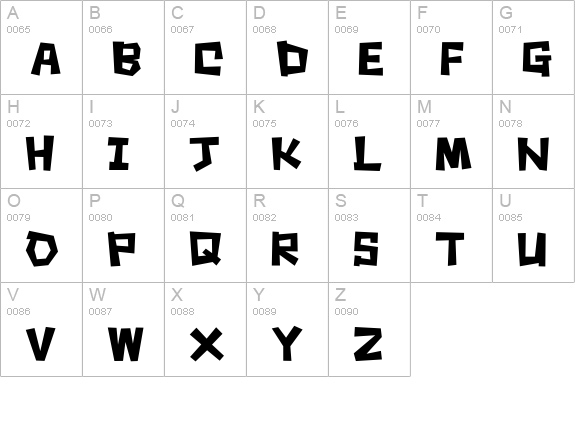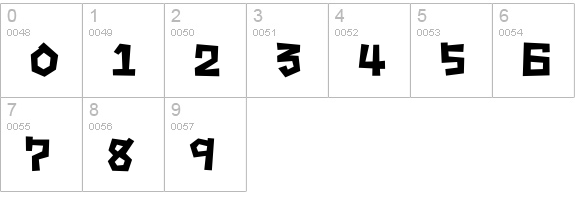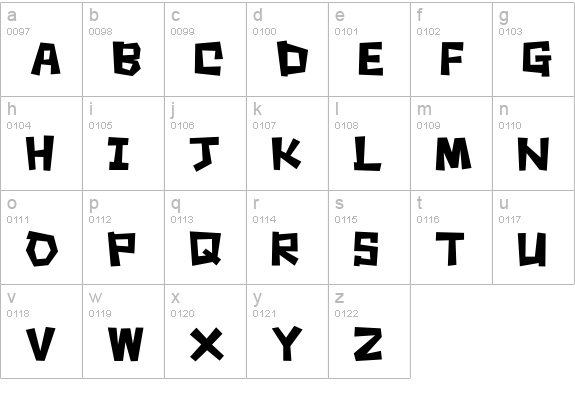
Introducing Square Rough Font, a captivating typeface that adds a touch of ruggedness and authenticity to your designs. With its bold, angular lines and rough edges, this font exudes a sense of confidence and strength. Whether you're creating eye-catching posters, edgy logos, or grunge-inspired designs, Square Rough Font is the perfect choice to make your message stand out. What makes this font even more appealing is that it is available for free download at FontsMarket.com. Yes, you read that right - it's free! Now you can enjoy the unique charm and versatility of Square Rough Font without worrying about breaking your budget. Designed with meticulous attention to detail, Square Rough Font effortlessly combines modern aesthetics with a hint of vintage appeal. Its well-defined characters ensure legibility, while the rough texture adds a touch of rawness that sets it apart from the crowd. Whether you're looking to create a bold headline or a subtle accent, this font has the versatility to adapt to any design project. The clean lines and distinctive shapes of Square Rough Font make it suitable for a wide range of applications. From branding and packaging to social media graphics and website designs, this font adds a touch of character and personality to any project. Its unique style is sure to grab attention and leave a lasting impression on your audience. So why wait? Don't miss out on the opportunity to enhance your designs with Square Rough Font. Head over to FontsMarket.com today and download this stunning font for free. Unleash your creativity and explore the endless possibilities that Square Rough Font has to offer.